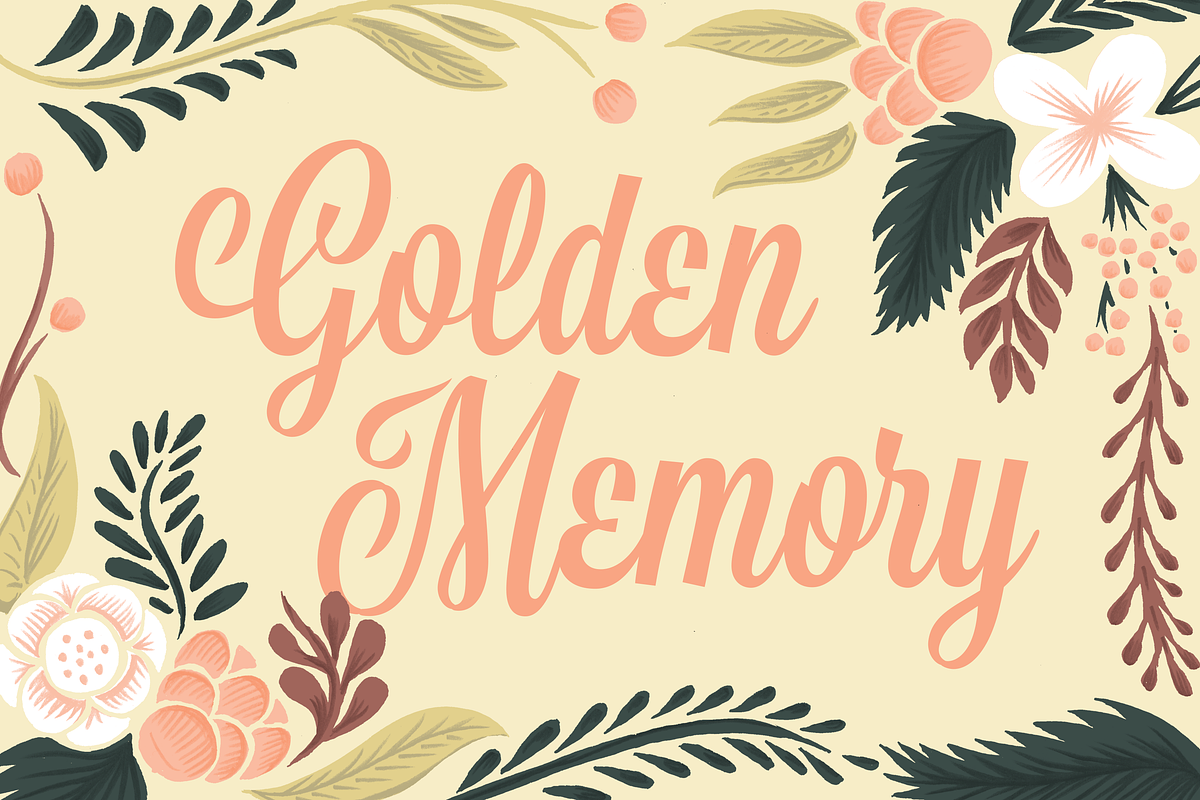
The Golden Memory Font Free Download is a charming and elegant script typeface that brings a vintage, hand-crafted feel to your designs. Perfect for creating invitations, logos, greeting cards, and any project that requires a timeless, classic touch, this font adds a warm, personal flair. Please note, for commercial use, a license must be purchased. You can download it for free for testing purposes.
With its graceful curves and sophisticated design, the Golden Memory Font Free Download is ideal for projects that require both elegance and personality. Whether you're working on branding, packaging, or personal stationery, this font will elevate your work with its beautiful, flowing style.
Get the Golden Memory Font Free Download today and add a touch of elegance and nostalgia to your designs with this lovely script typeface.